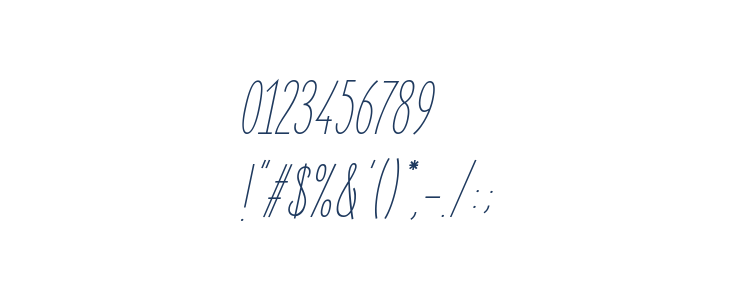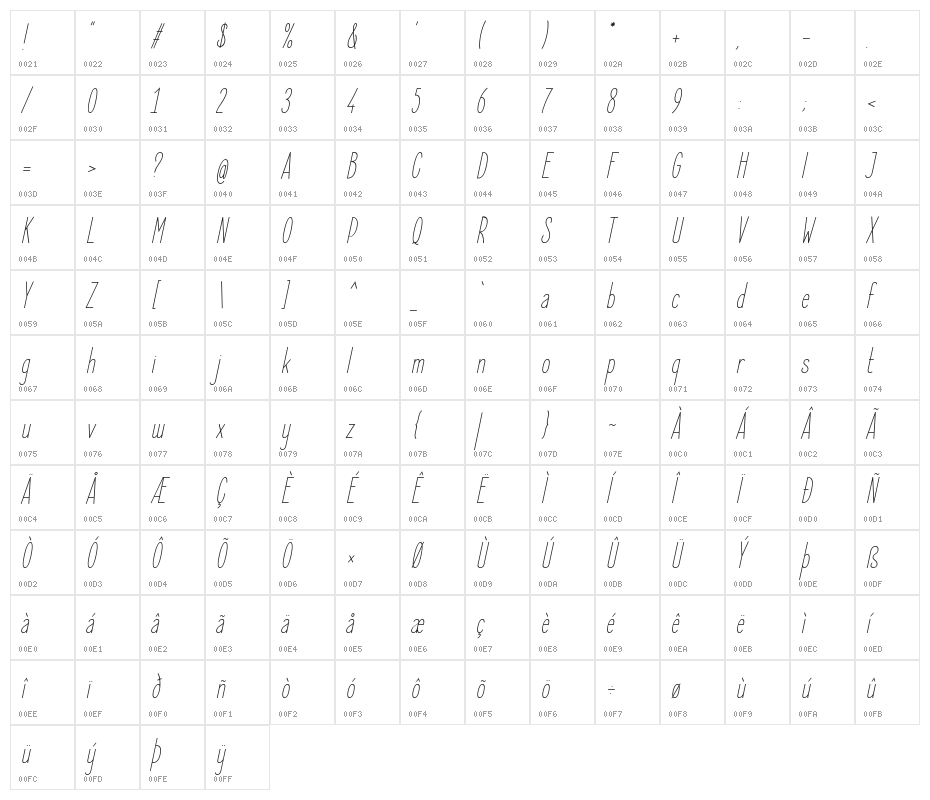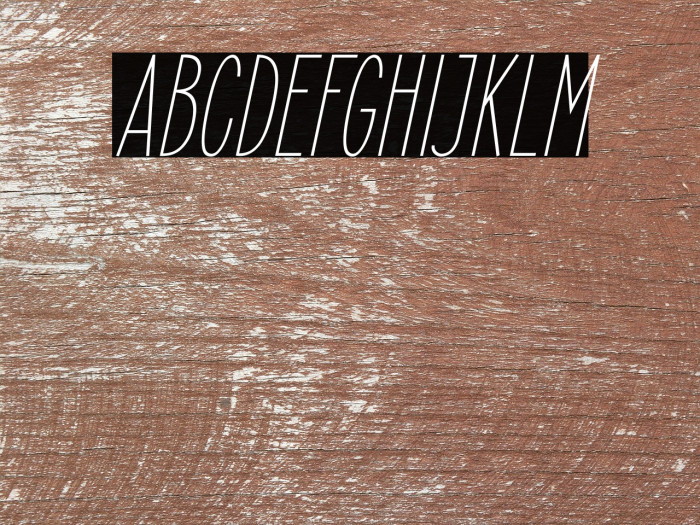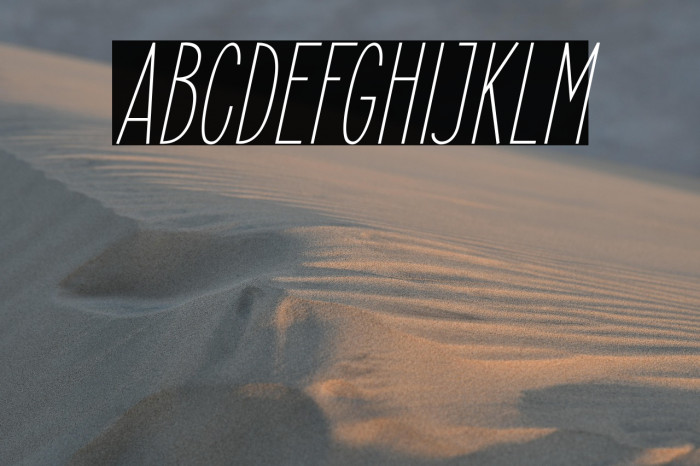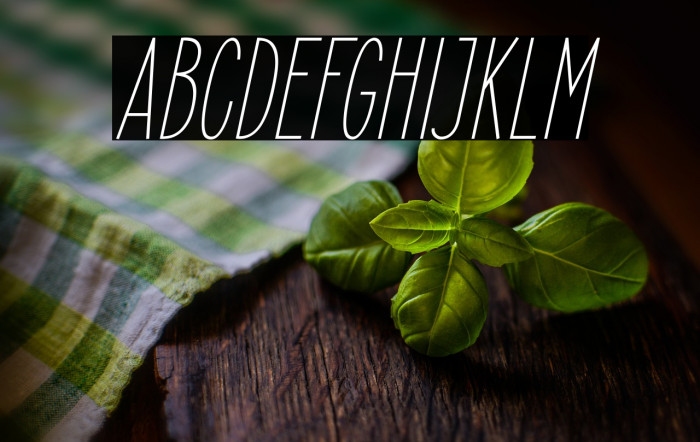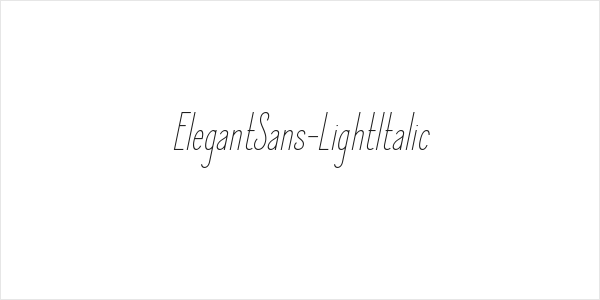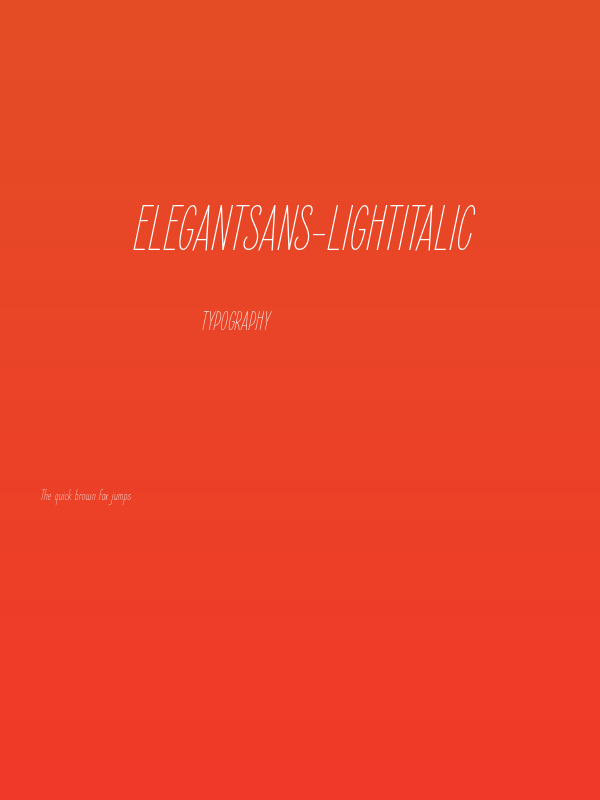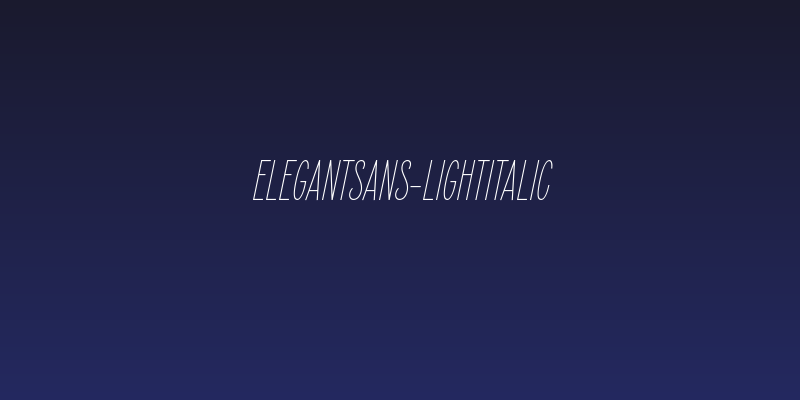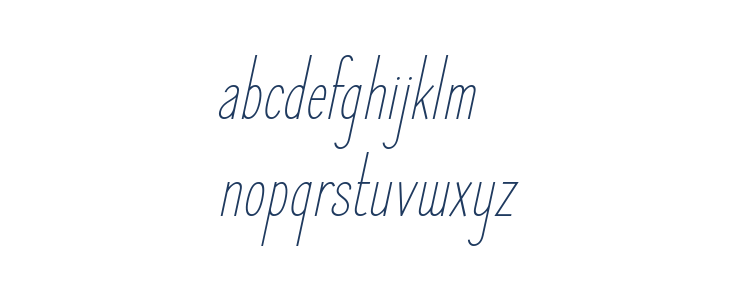
ElegantSans-LightItalic Font
ElegantSans-LightItalic Description
This font features a sleek and elegant design with a light and italicized style. The characters are tall and narrow, giving it a sophisticated and modern appearance. The strokes are thin and consistent, providing a clean and airy feel. The uppercase letters are slightly taller than the lowercase, maintaining a uniform height across the alphabet. The numerals are proportionate and align well with the overall style, while the special characters are distinct yet harmonious with the rest of the set. This font exudes a sense of refinement and is ideal for projects that require a touch of elegance.